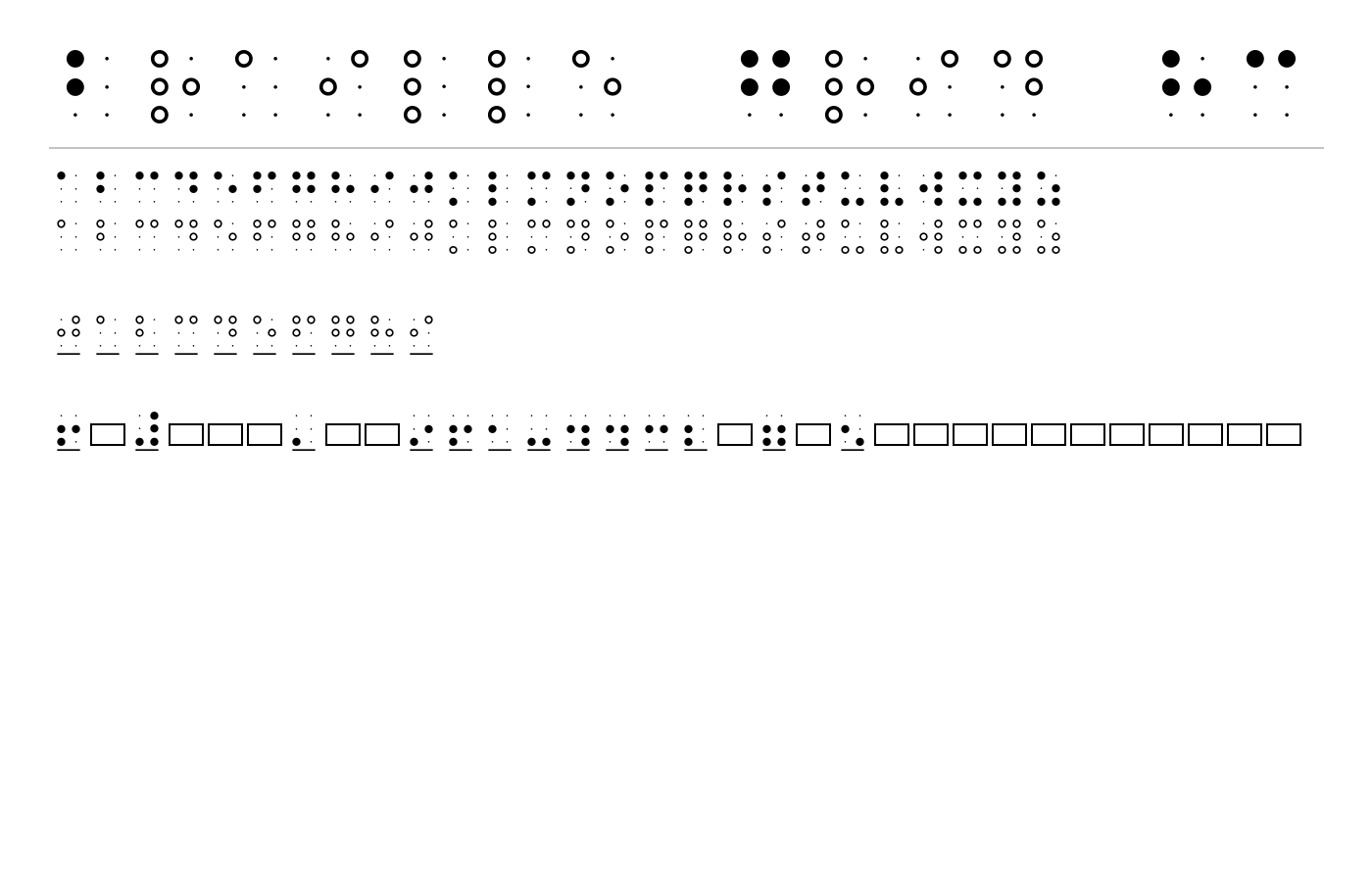
Braille Grid HC is a unique, monospaced font inspired by traditional Braille dots, combining solid and hollow circular shapes arranged in a precise grid. Its clean, geometric design offers a modern, minimalistic feel that works well for educational materials, accessibility projects, and creative design elements seeking a futuristic or tech-inspired aesthetic. This font excels in digital and print contexts where clarity and a distinct, tactile visual style are desired.
Braille Grid HC Font
About Braille Grid HC Font